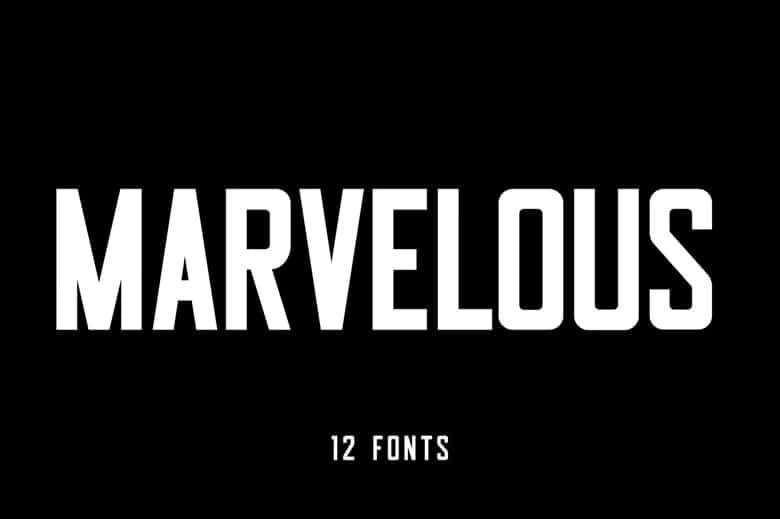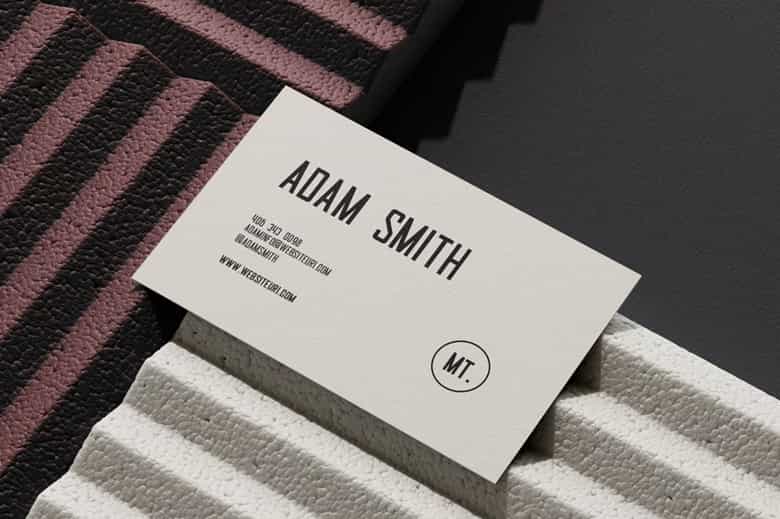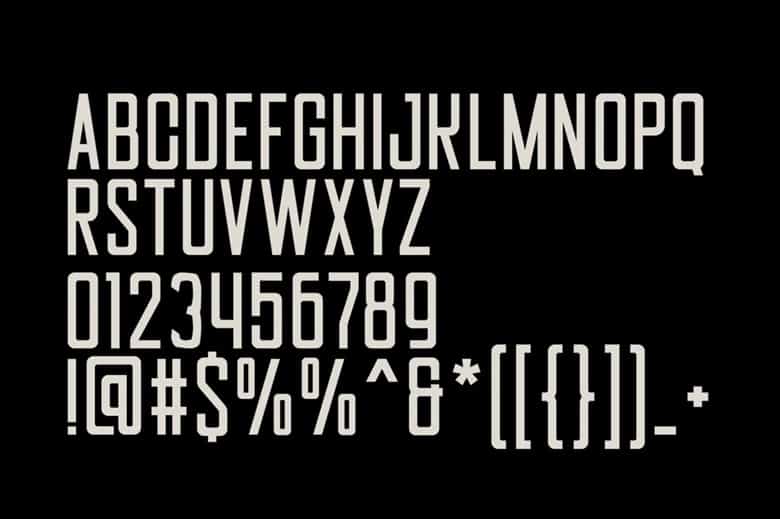
Marvelous is a distinctively innovative condensed sans serif font family that lends bold yet clean look to all your projects. As simplistic and minimalist in design as it is, Marvelous comes with 12 different styles that can be easily changed to suit your projects. This typeface is deliberately designed to complement your work if you are in search of contemporary, classic or bold fonts.